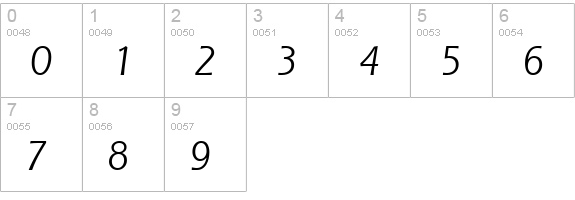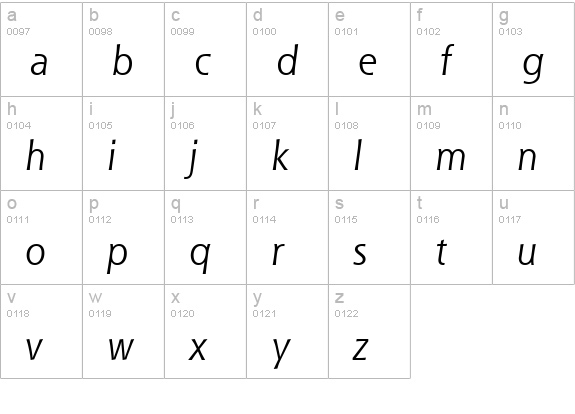
Que SSi Italic is a distinctive, italic variant in the Que typeface family \xE2\x80\x94 well suited to design and typography projects.
Que SSi Italic is a stunning and elegant font that is perfect for adding a touch of sophistication and style to any design project. With its sleek and slanted letterforms, this font exudes a sense of modernity and creativity. Whether you're designing a logo, creating a brand identity, or working on a digital or print project, Que SSi Italic is sure to make a lasting impression. What sets Que SSi Italic apart from other fonts is that it is not only visually appealing, but also free to download. That's right, you can get your hands on this beautiful font without having to spend a penny. It's an incredible opportunity for designers, students, and anyone in need of a high-quality font to enhance their projects. To get your hands on Que SSi Italic, simply head over to FontsMarket.com, where it is freely available for download. FontsMarket.com is a trusted source for a wide range of fonts, and they make it easy and convenient to find and download the perfect typeface for your needs. Whether you're a professional designer or a hobbyist, FontsMarket.com is your go-to destination for all your font-related needs. Don't miss out on the chance to add a touch of elegance and sophistication to your designs with Que SSi Italic. Download it for free at FontsMarket.com today and watch as your projects come to life with this stunning font.